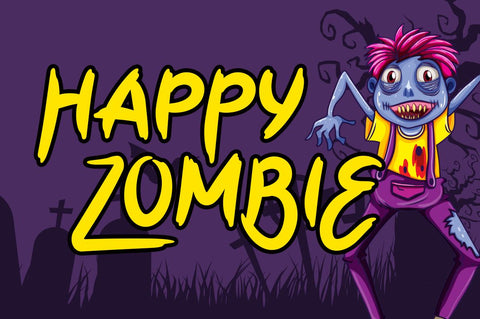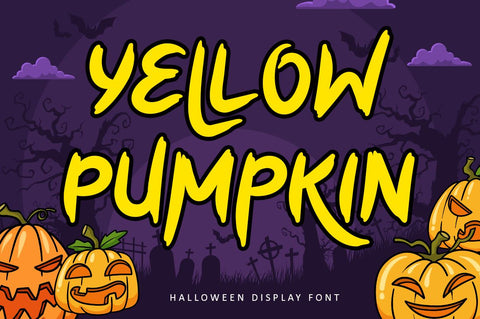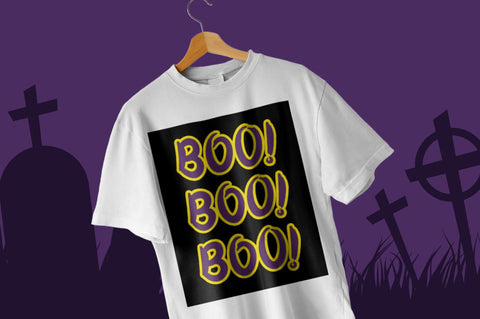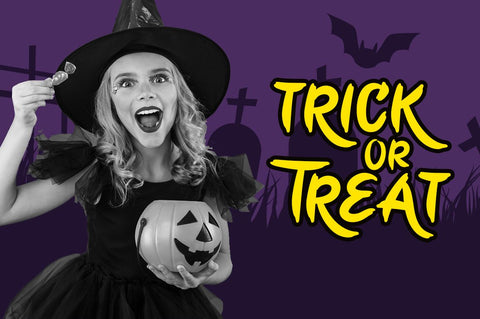
Yellow Pumpkin - Halloween Font
Yellow Pumpkin is a thick-lettered, brushed and spooky display font. It is perfectly suitable for any Halloween-related project or crafty idea! The only limit is your imagination.
• Uppercase and lowercase
• Numbers
• Symbols
• Alternates
• Multilingual Accent